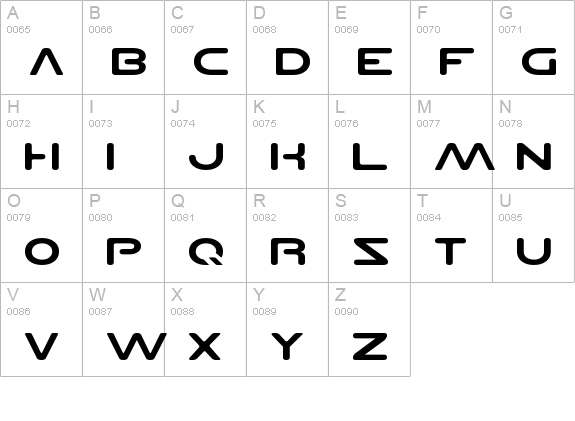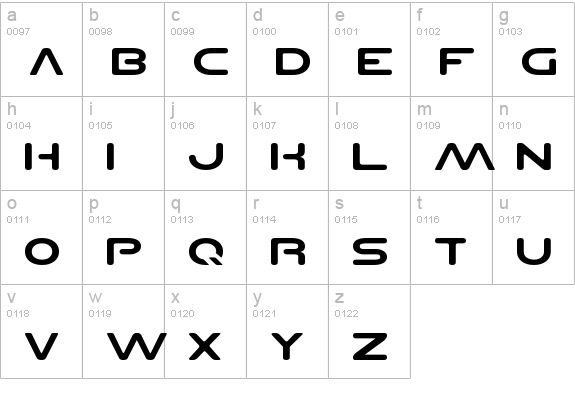
Planet NS Expanded is a distinctive, extended-width variant in the Planet typeface family \xE2\x80\x94 well suited to design and typography projects.
Planet NS Expanded is a stunning and versatile font that will instantly captivate your audience. With its sleek and modern design, this font is perfect for a wide range of creative projects, from branding and advertising to web design and print materials. The expanded version of the Planet NS font family offers even more possibilities for your typography needs. Its elongated letterforms give your text a sophisticated and elegant look, while still maintaining excellent legibility and readability. Whether you're designing a logo, creating a magazine layout, or crafting an eye-catching poster, this font will effortlessly elevate your design to the next level. One of the best things about Planet NS Expanded font is that it is free to download. Yes, you read that right - this high-quality and professionally designed font is freely available at FontsMarket.com. You can easily access and download this font, without any restrictions or hidden costs, making it a valuable resource for both personal and commercial projects. By using Planet NS Expanded font, you not only get access to a visually appealing and well-crafted typeface, but you also have the freedom to explore your creativity without any limitations. Its extensive character set and wide range of weights and styles allow you to experiment with different typographic treatments and create unique and memorable designs. So why wait? Experience the beauty and versatility of Planet NS Expanded font today. Visit FontsMarket.com and download this incredible font for free. Let your creativity soar and make a lasting impression with this remarkable typeface.